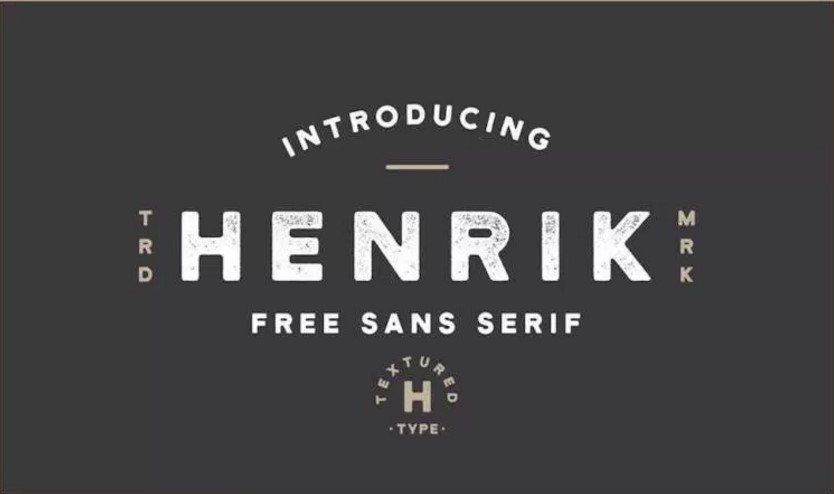
If you’re looking for Henrik sans serif font to download it free then you’re on right place. Because here we will share it to download for free. Henrik is extraordinarily flexible and remarkable for attaining that antique aesthetic with your designs. You can give a new look to your designs by using this professional font. The Henrik sans serif font will increase the quality of your work and designs.
If you’re going to use it in magazine designing then this is one of the best choice for you. It functions textured top case characters and picks punctuation so that it will work extraordinarily in branding, badges, labels, apparel, headlines and lots greater. It comes with many other features that you ever look in a free font. It has ability to make your designs unique and high quality.
Henrik Sans Serif Font Free
The designer of this font has carefully crafted it. You can use this font for different purpose like if you’re going to start new graphic designing project then the Henrik sans serif font will comes very hand. There are many other advantages of using this font and for more information. You can take a look on the demo of its style and check its quality.